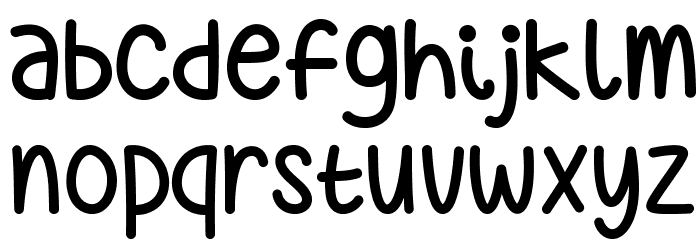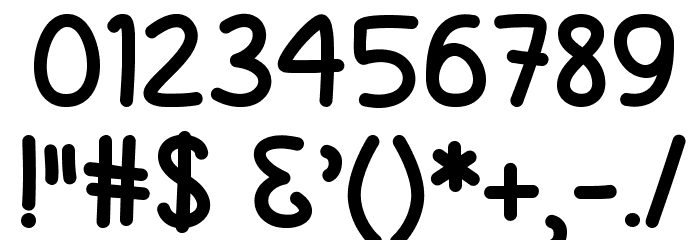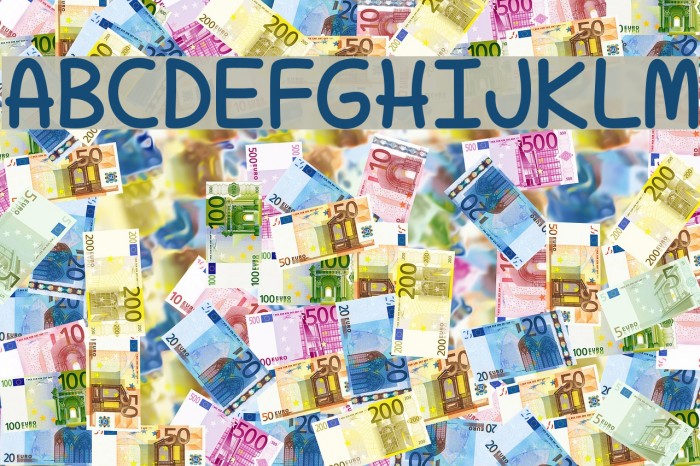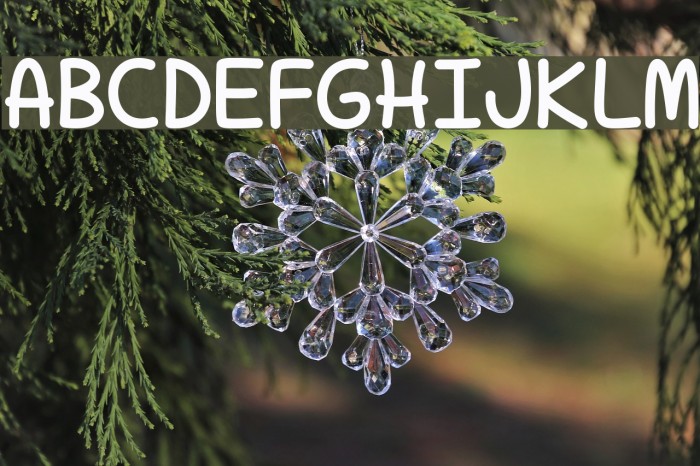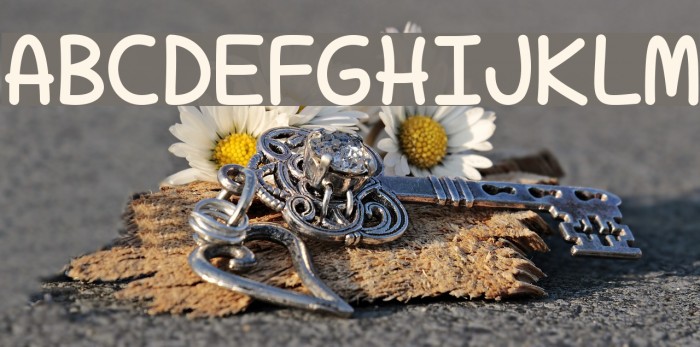
JustSayin Font
This playful and casual font features rounded edges and a handwritten style, giving it a friendly and approachable appearance. The characters are bold and slightly condensed, with a consistent stroke width that maintains readability. The font includes a full set of uppercase and lowercase letters, numbers, and a variety of special characters, making it versatile for different uses. Its informal style is perfect for projects that require a personal touch or a fun, relaxed vibe.
A playful, handwritten font with rounded edges and a casual style.
- Proposed Projects: Ideal for children's books, greeting cards, informal invitations, and playful branding.
- Overall Style: Casual
- Use Case: Headlines, Logos, Informal Text